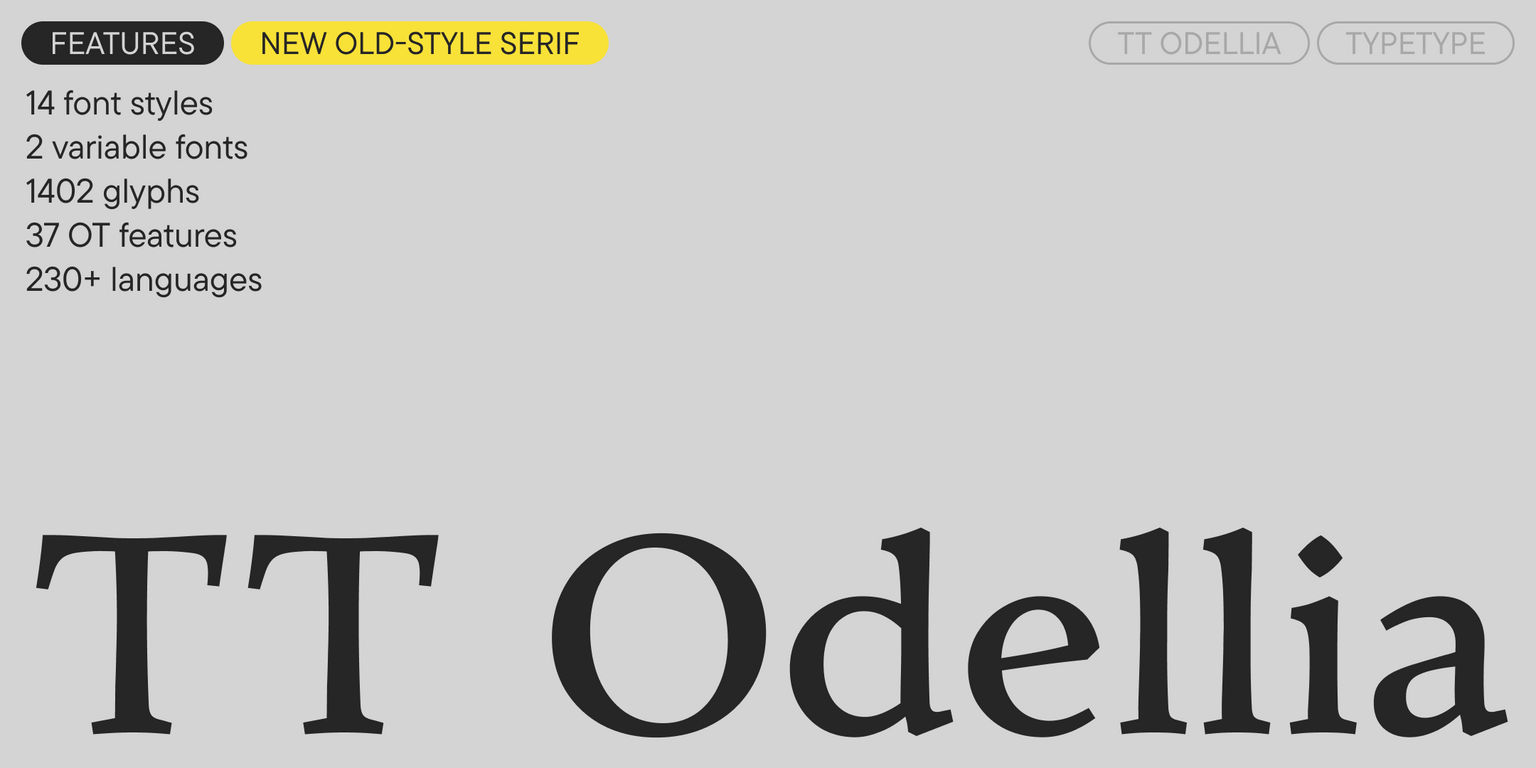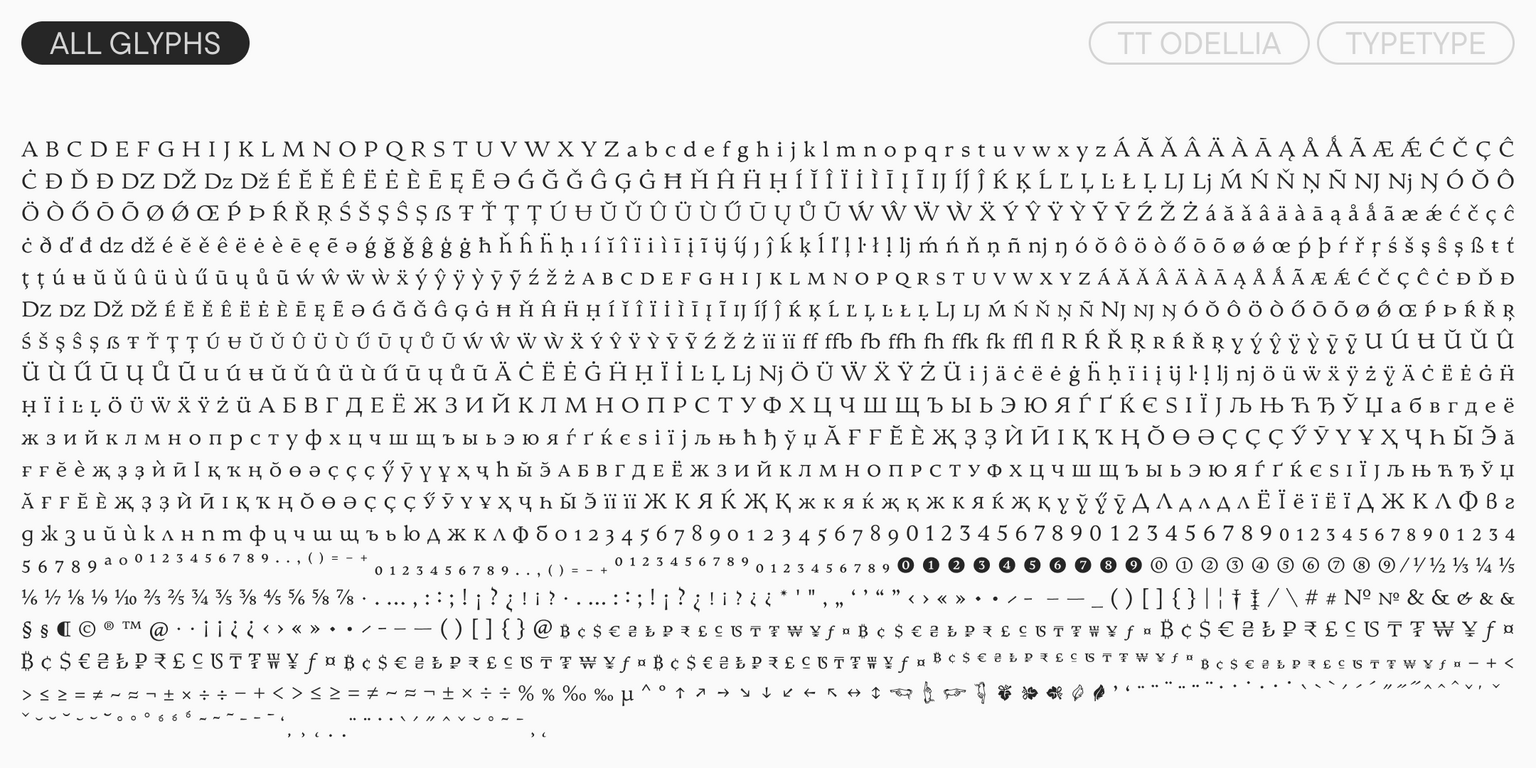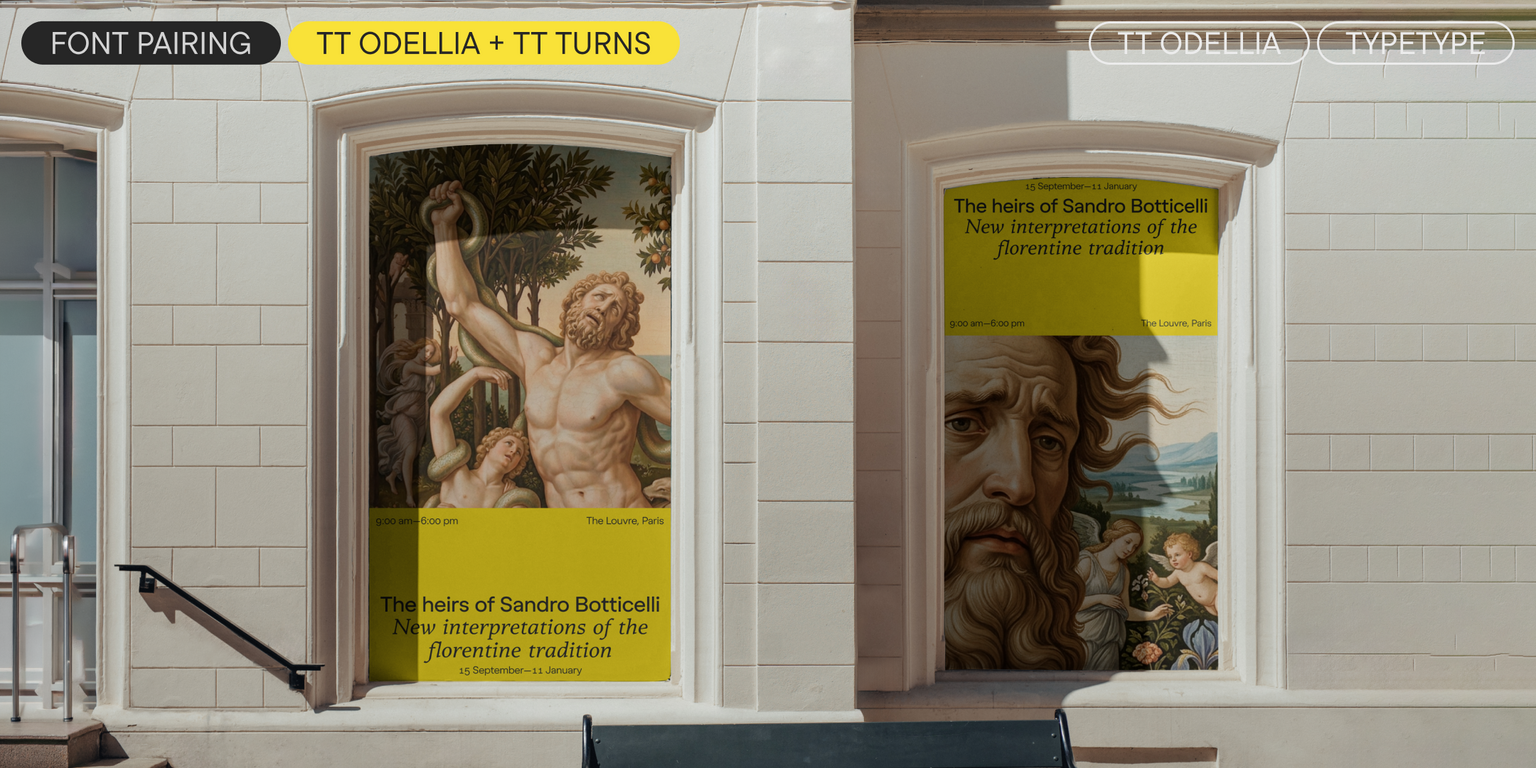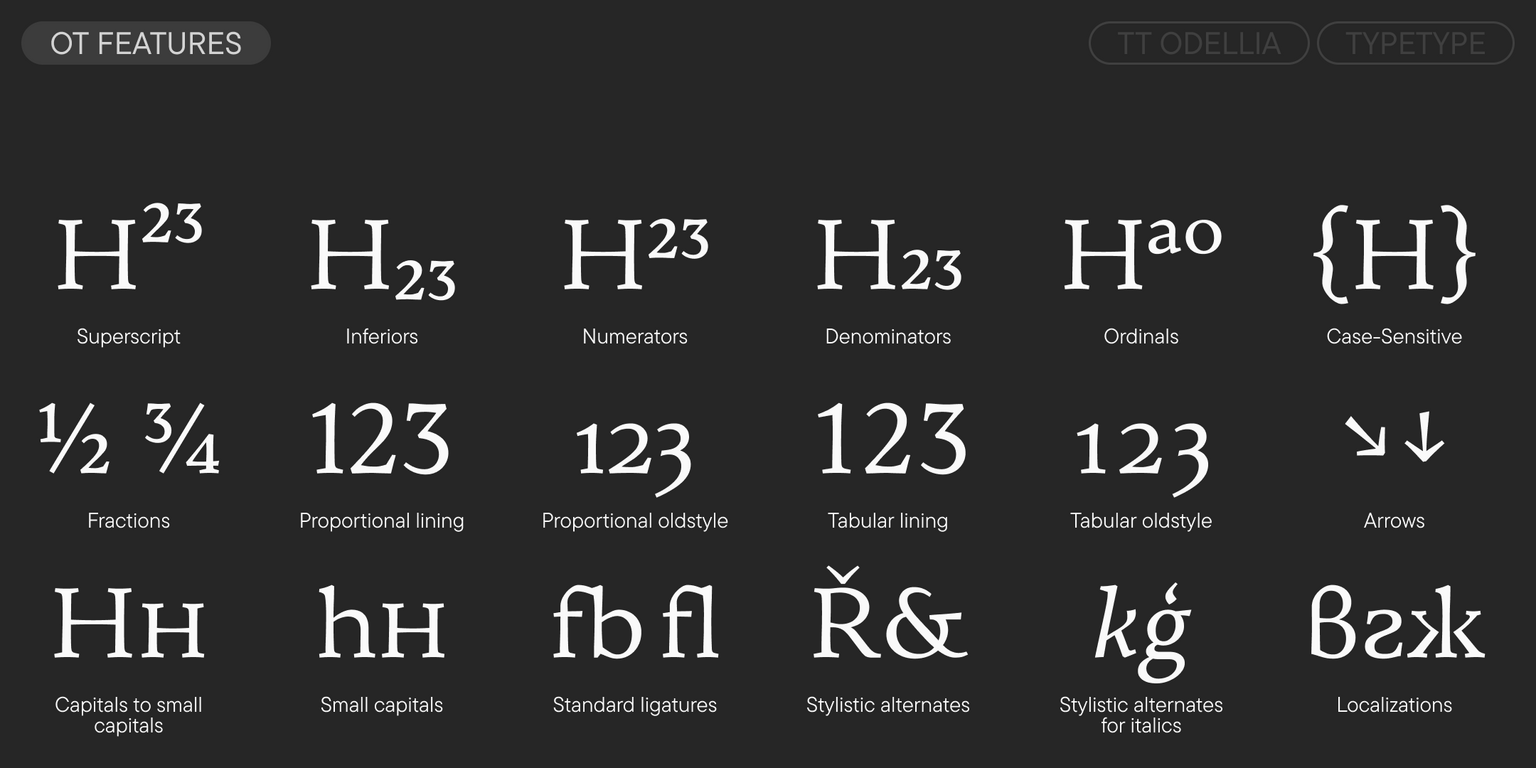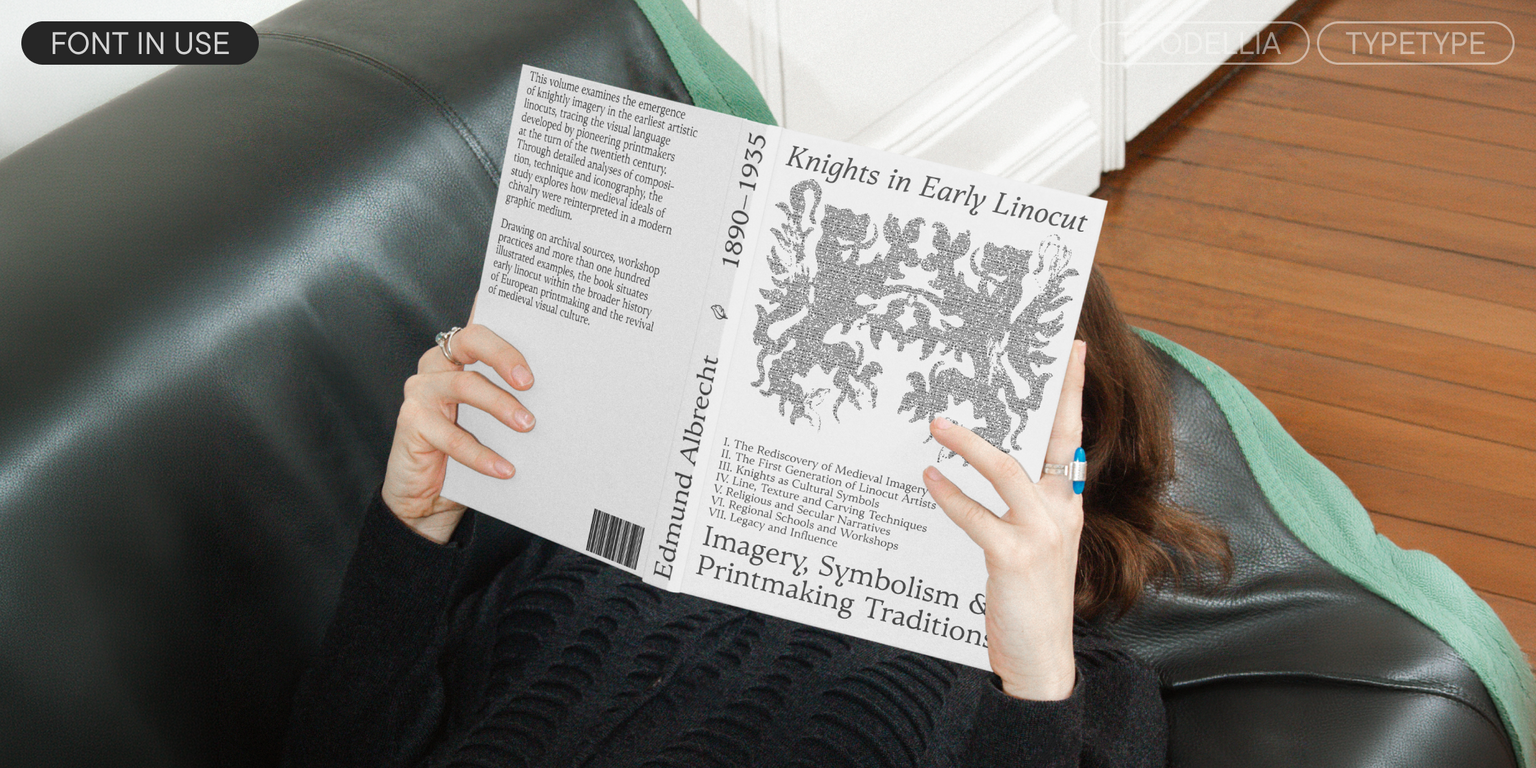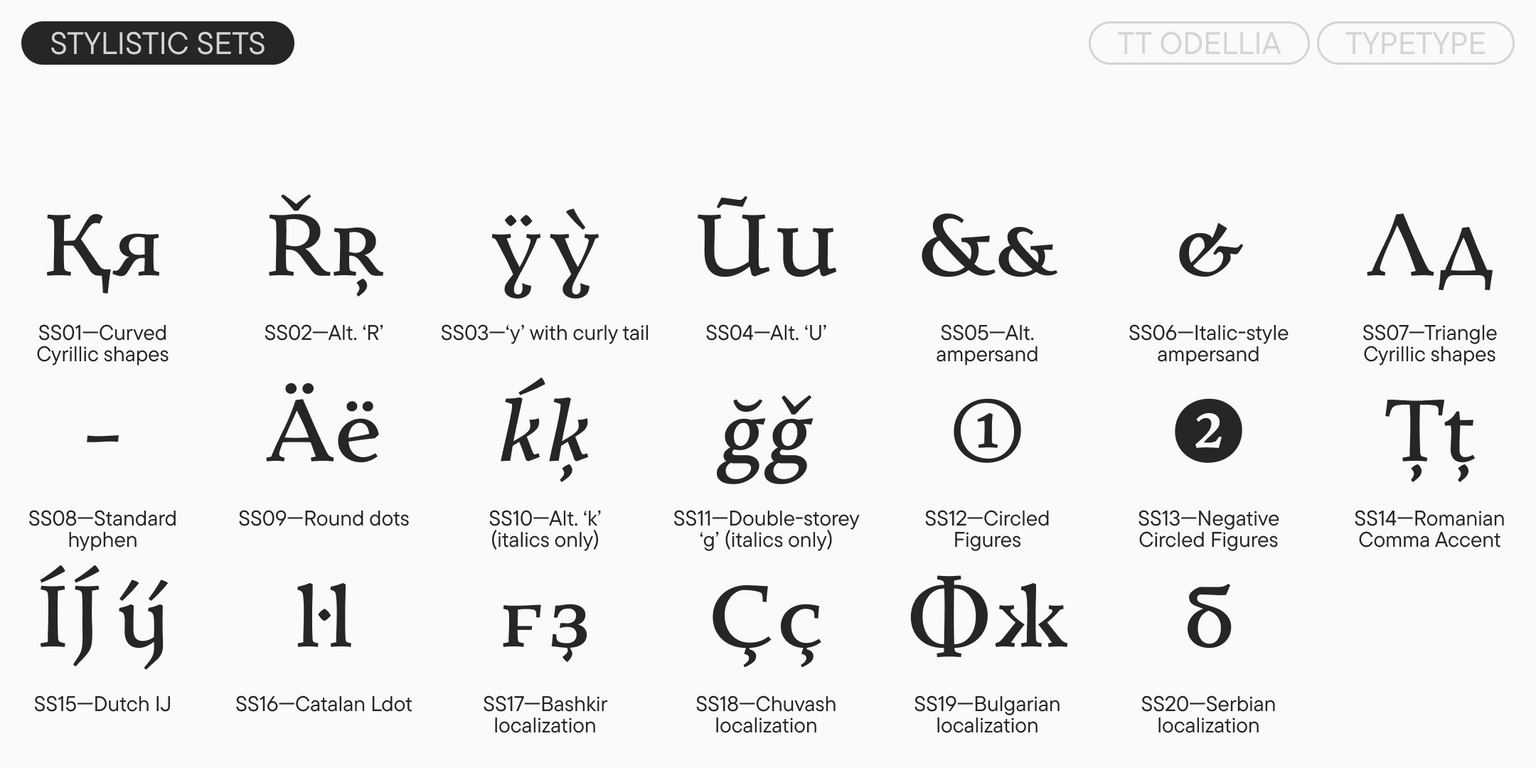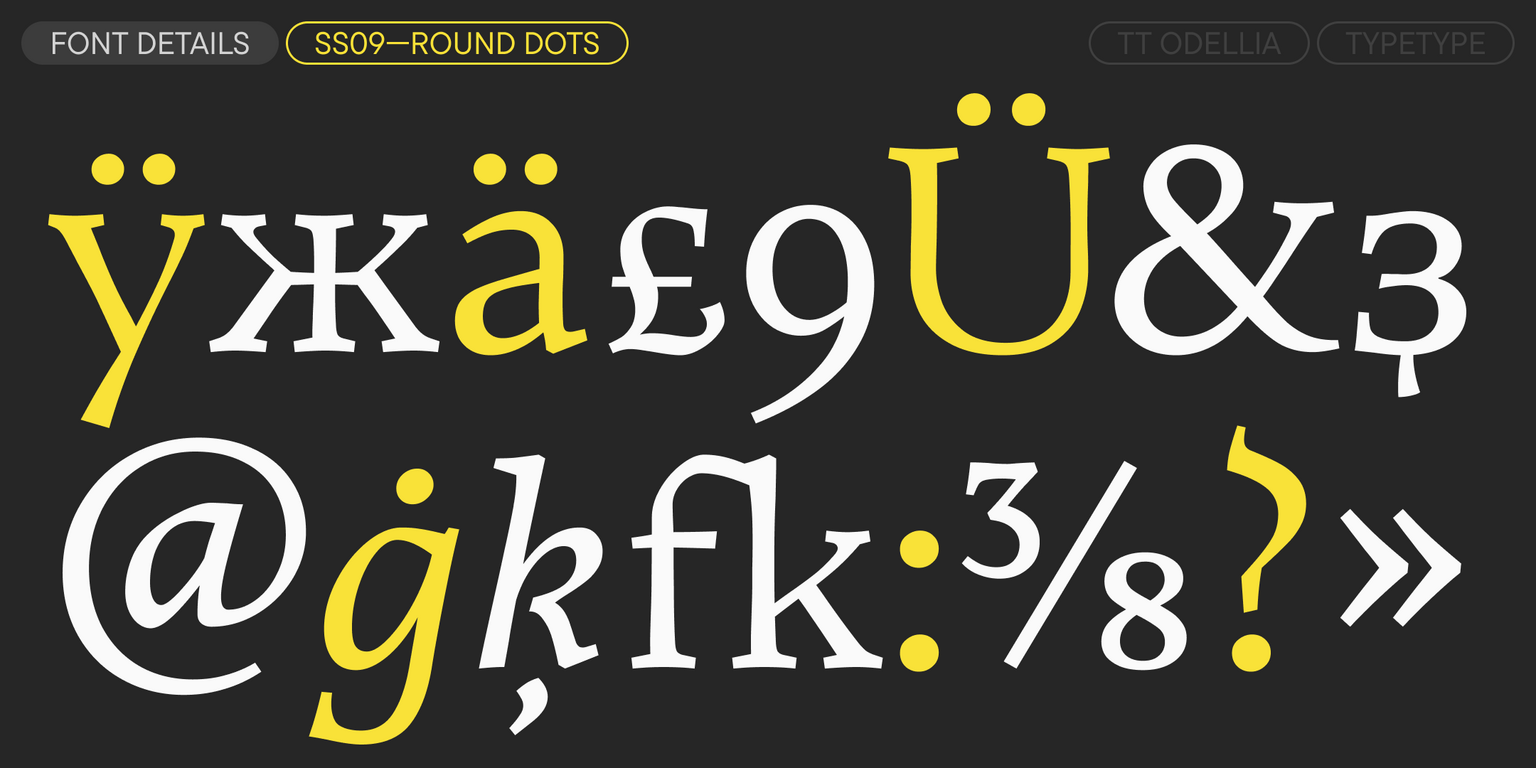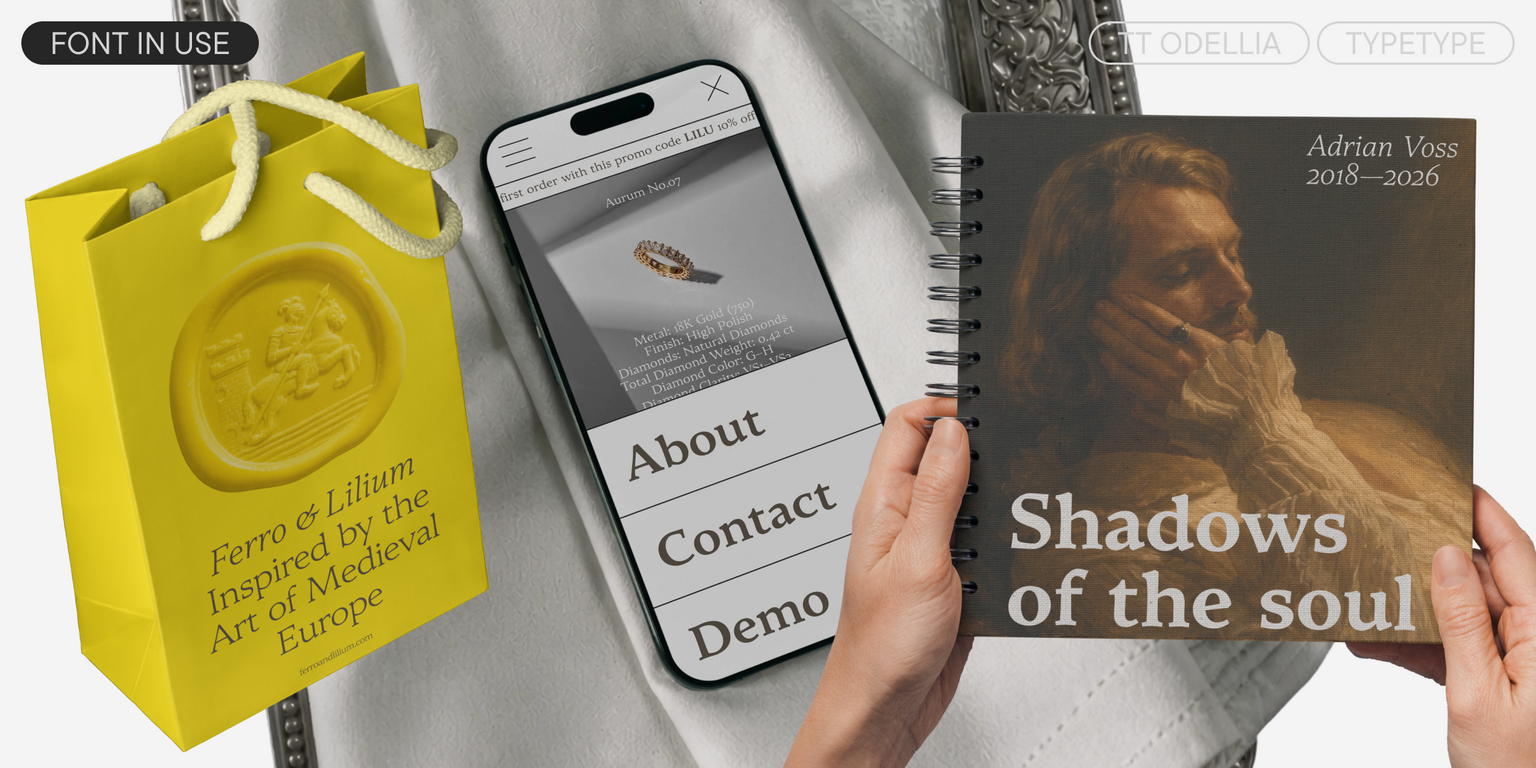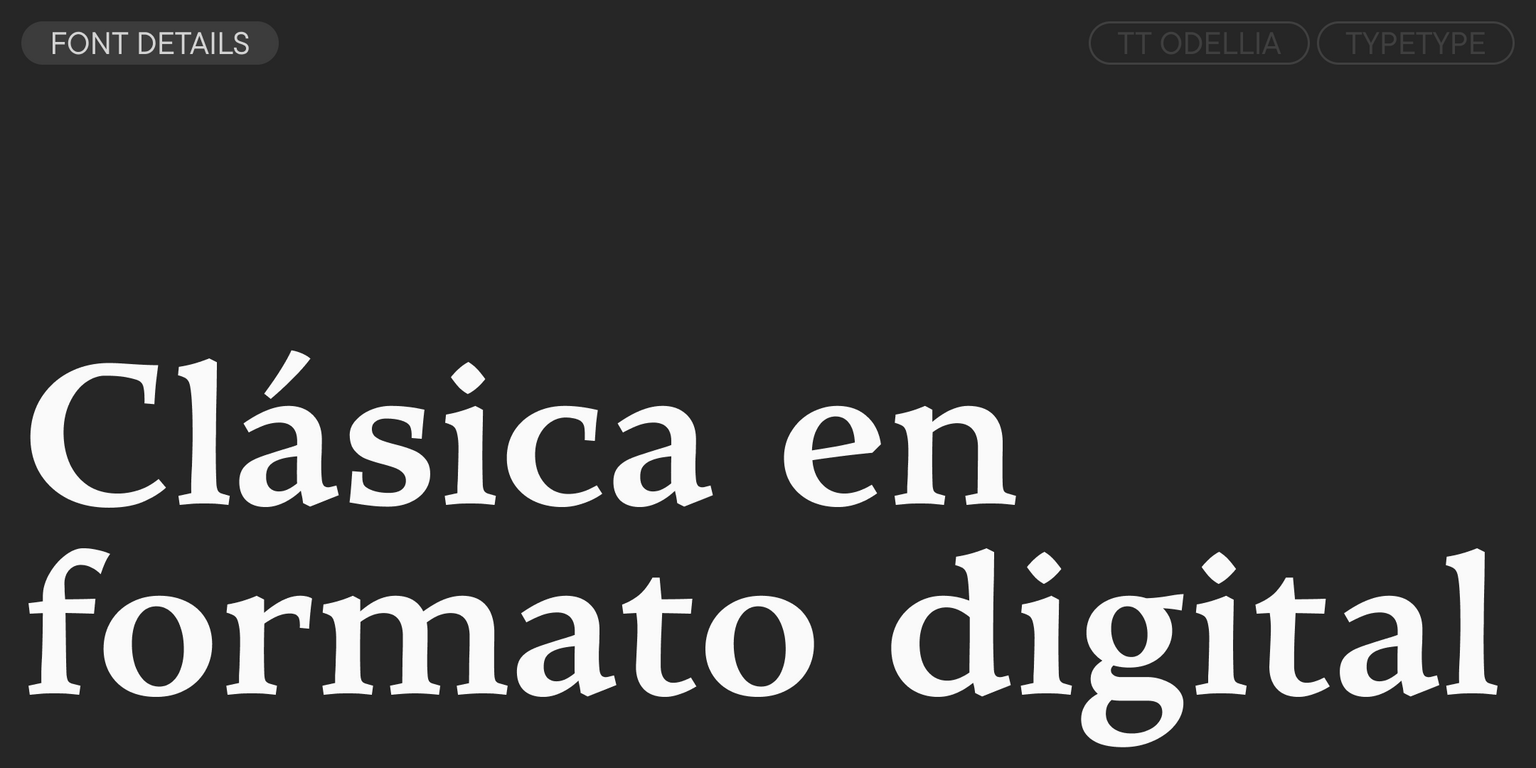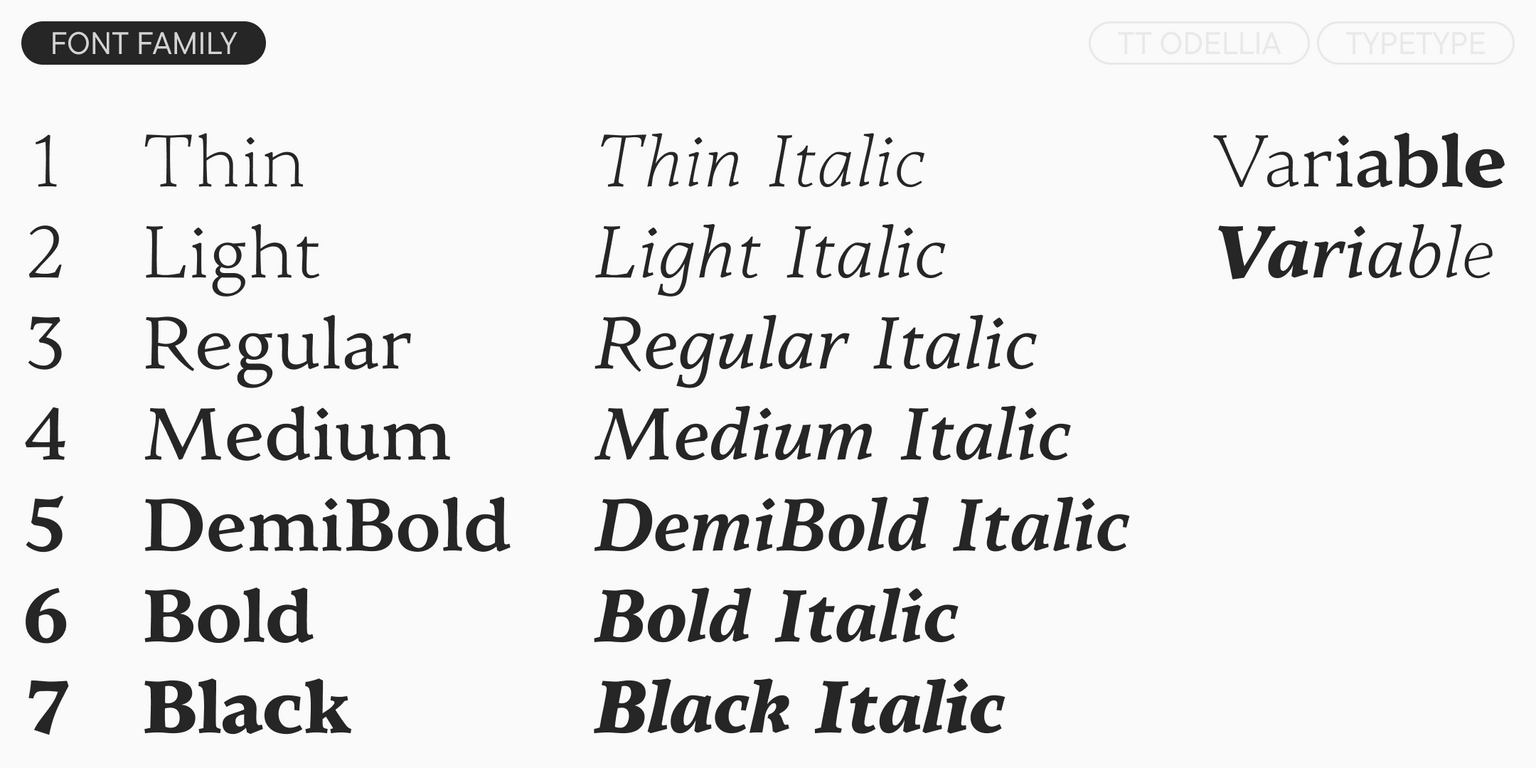
TT Odellia
TT Odellia is an old-style serif with a modern design, inspired by Venetian typefaces and classical music.
TT Odellia—an old-style serif crafted with modern tools
The TT Odellia typeface is a long-awaited release from our studio. The font was in development for three years and is an old-style serif crafted in a signature style. The name is inspired by the ballet Swan Lake and is derived from the names of its heroines—Odette and Odile. The roles of Odette and Odile in the ballet reveal the duality of human nature through the contrast of good and evil. Odette, the white swan, symbolizes purity, tenderness, and vulnerability, while Odile, the black swan, represents cunning, power, and temptation. In the font, this duality reads as a combination of a soft, handcrafted old-style serif with the clean and fluid contours available only in the 21st-century vector format.
Swan Lake is a ballet by Pyotr Ilyich Tchaikovsky, composed in 1876, in four acts.
The font features 1,399 glyphs and 20 stylistic sets.
Meet the new TT Odellia—the first old-style serif in the TypeType collection, inspired by Venetian typefaces and classical music.
TT Odellia is an old-style serif with a modern design. This is a long-awaited release from our studio: the font was in development for three years. It does not replicate classic examples of Venetian typefaces; rather, it is a collective image of them in a modern interpretation.
TT Odellia represents a unity of opposites: the dynamics and fluidity of the stems combined with clearly defined shapes and sharp serifs demonstrate the embodiment of a handcrafted idea in a digital format. This is reflected in the name of the typeface: it blends the names of Odette and Odile—the heroines of the ballet Swan Lake, the white and black swans. Their figures symbolize the duality of human nature through the contrast of good and evil.
OpenType features
ss01 | Curved Cyrillic shapes
ss02 | Alt. R
ss03 | y with curly tail
ss04 | Alt. U
ss06 | Italic-style ampersand
ss09 | Round dots